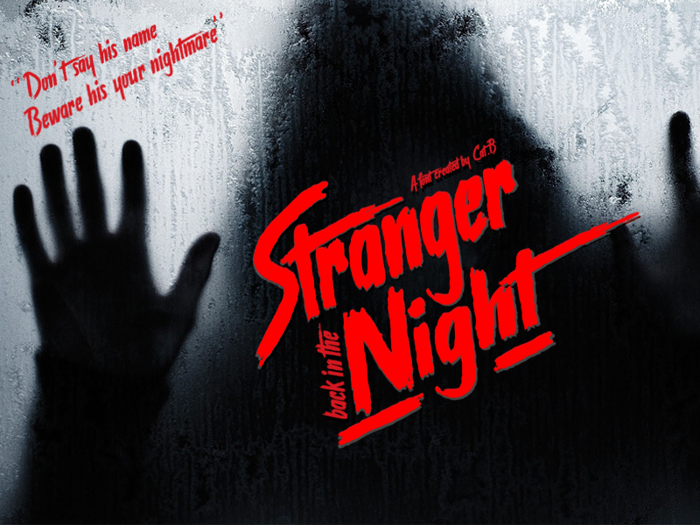
Stranger back in the Night Font
A bold, rough dry-brush display with a tall narrow stance and a horror-movie edge — aggressive hand-lettering for Halloween posters, thriller titles, and dark designs. Includes upper and lowercase letters, numbers, and punctuation. Free for personal use; contact the designer for commercial use.